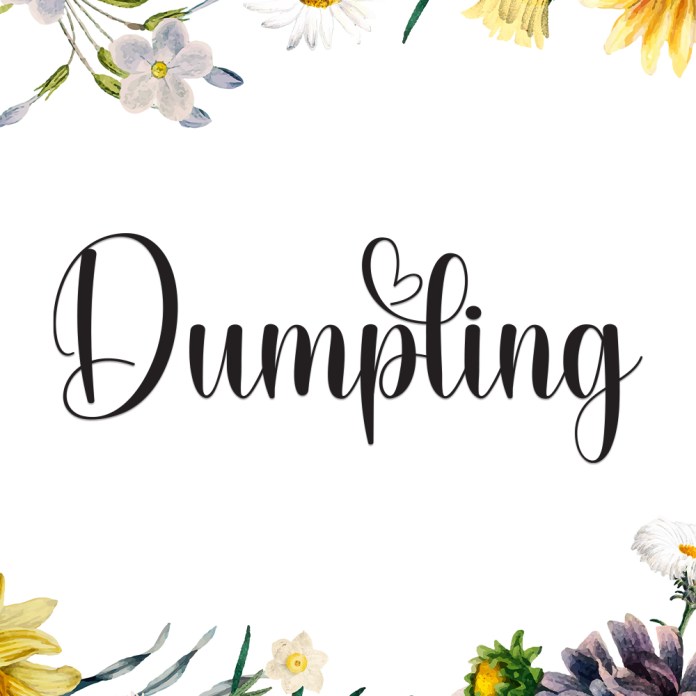
Dumpling is a cute and cheerful handwritten font with a bubbly and friendly style. Its playful curves and natural stroke rhythm make it perfect for adding personality and charm to your creative projects.
Whether you're designing for kids, making greeting cards, or creating social media graphics, Dumpling brings a lighthearted and joyful touch to your work.
Fun and casual handwritten style
Uppercase & lowercase letters
Numbers & punctuation
Let your designs feel friendly and approachable with the delightful Dumpling font.